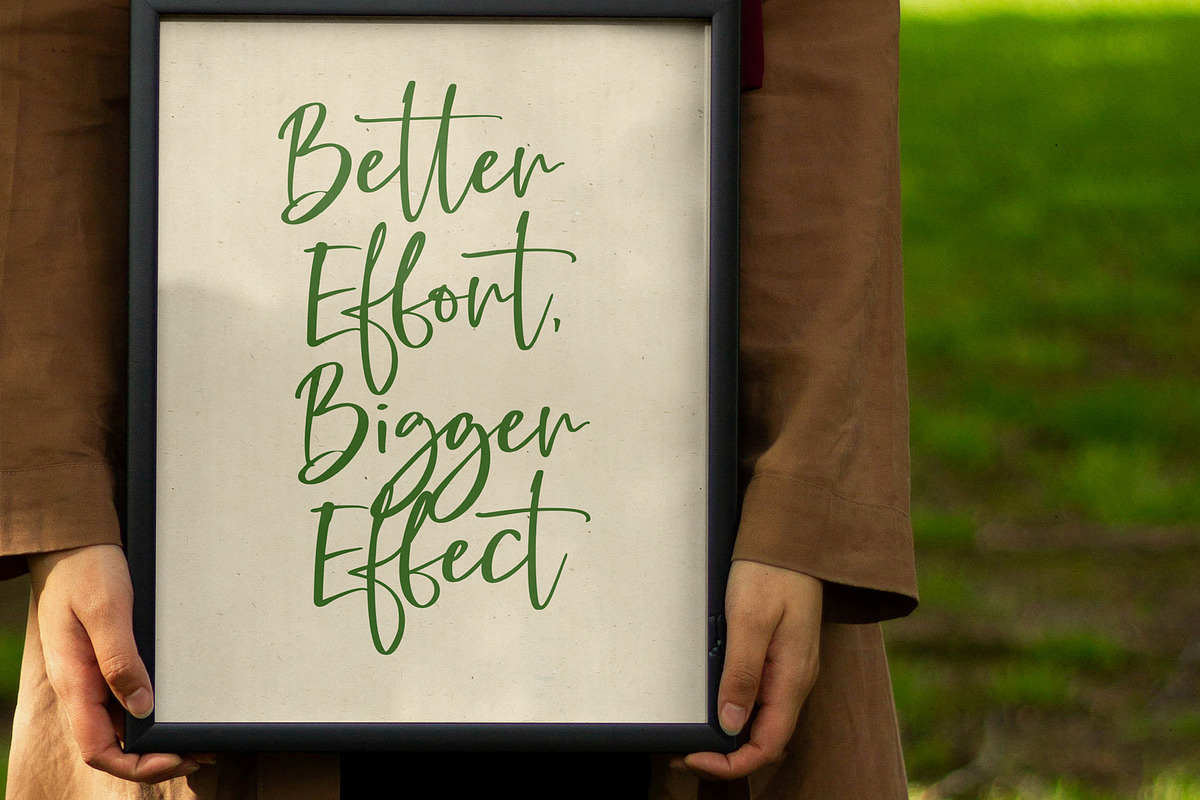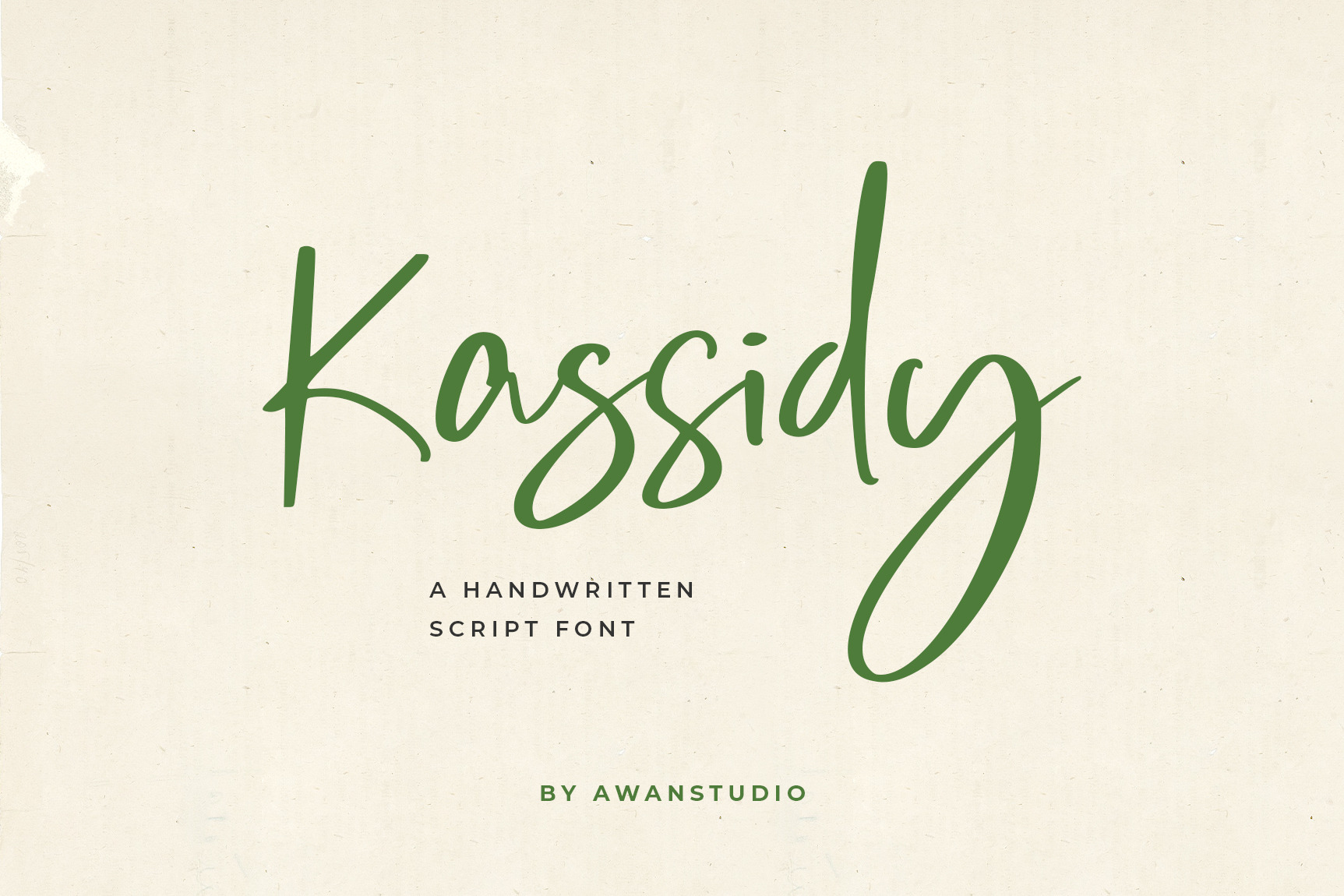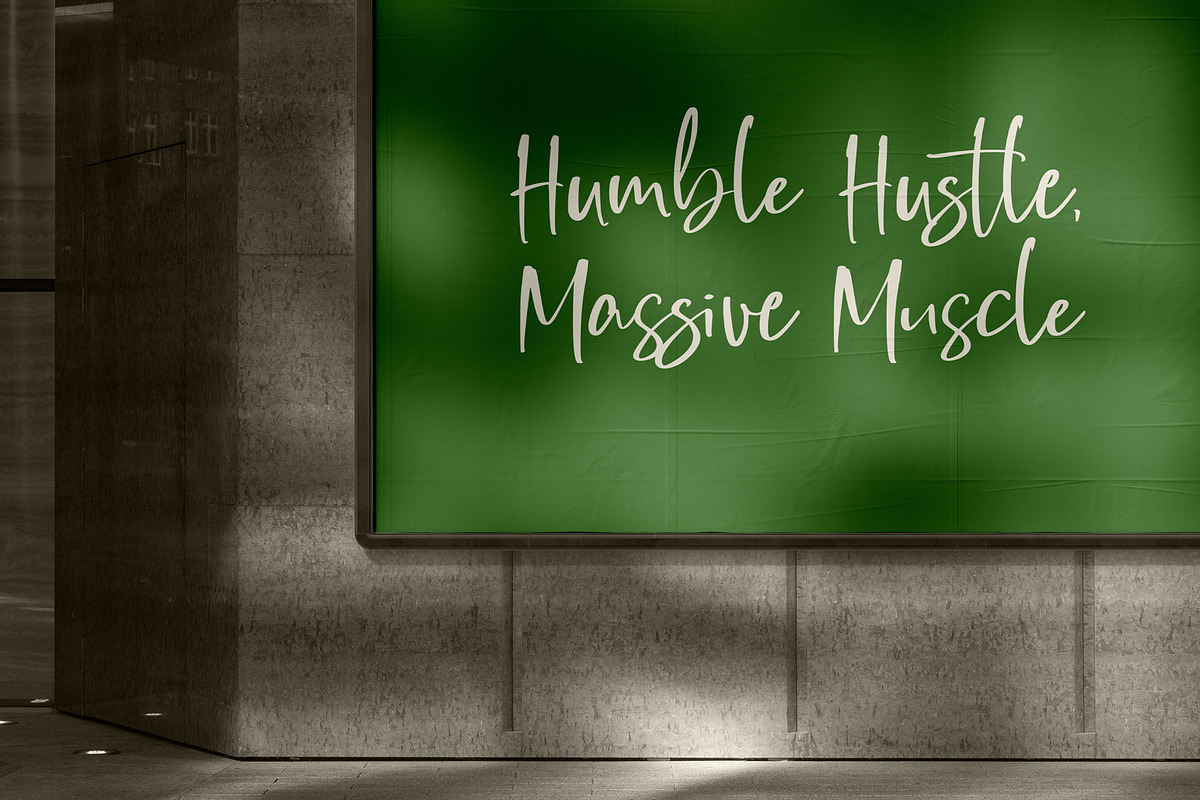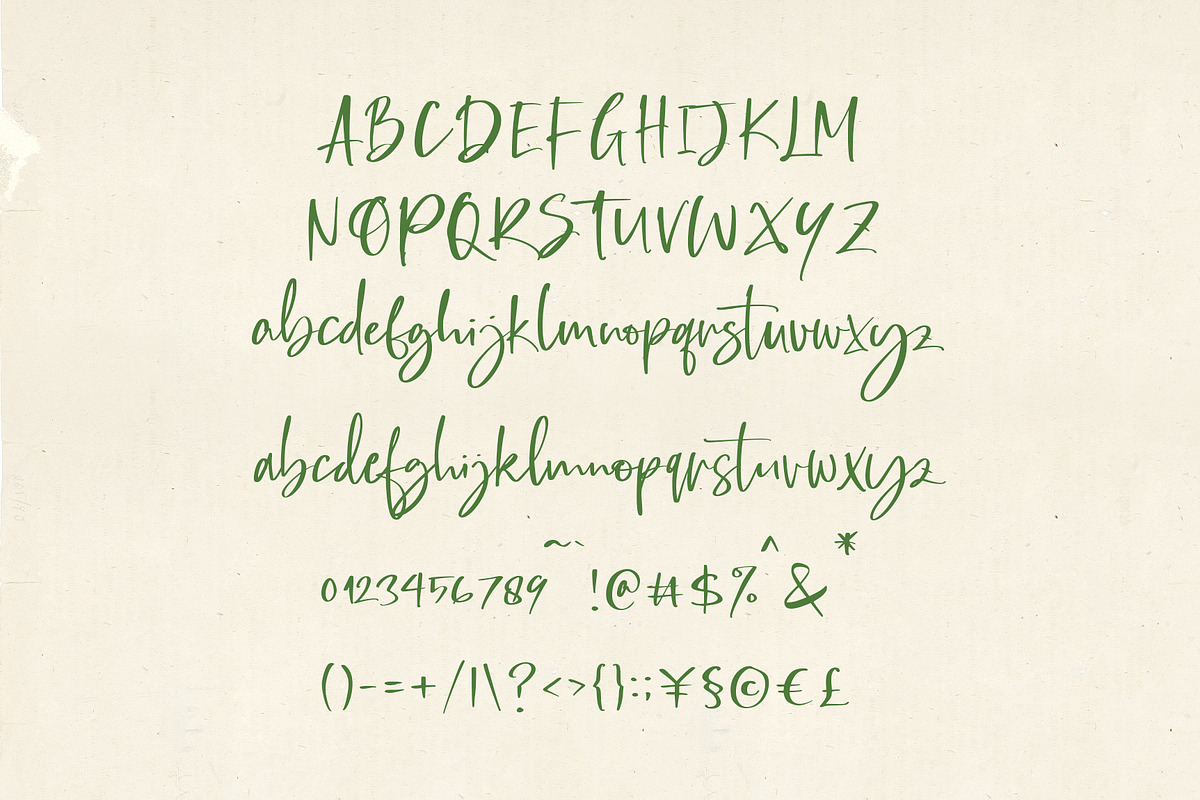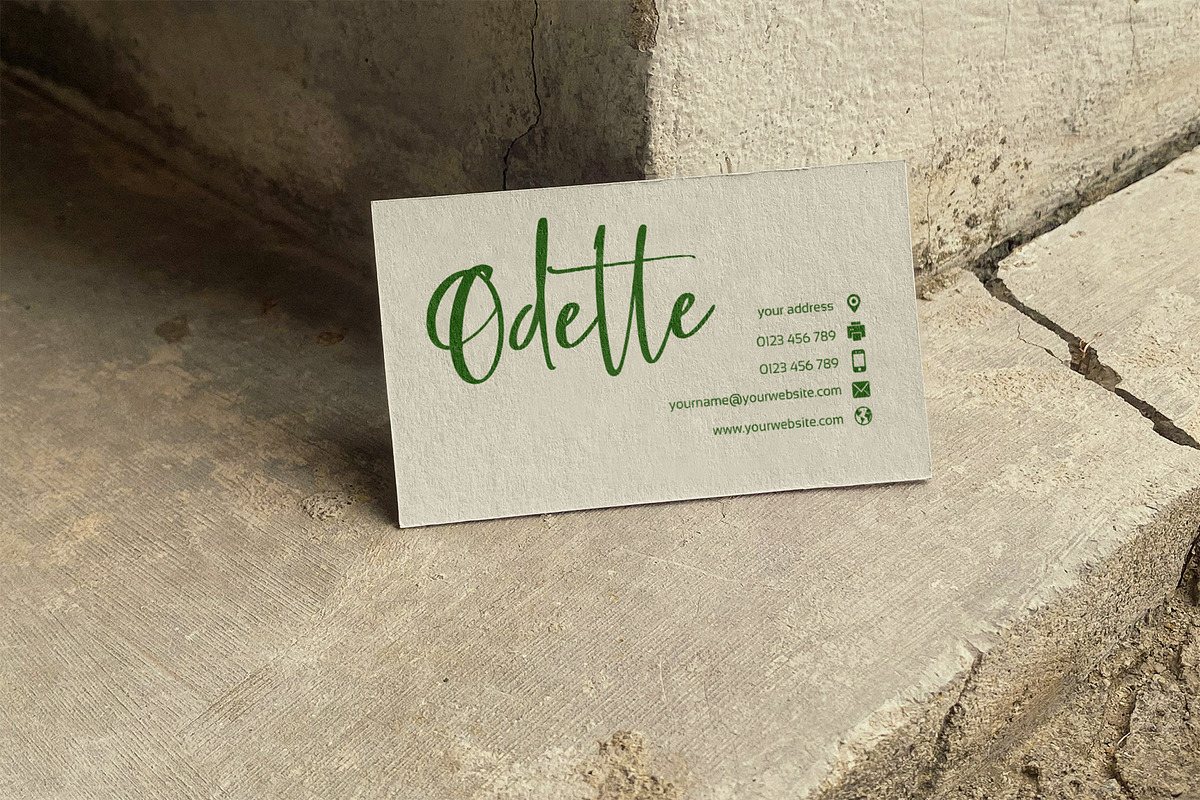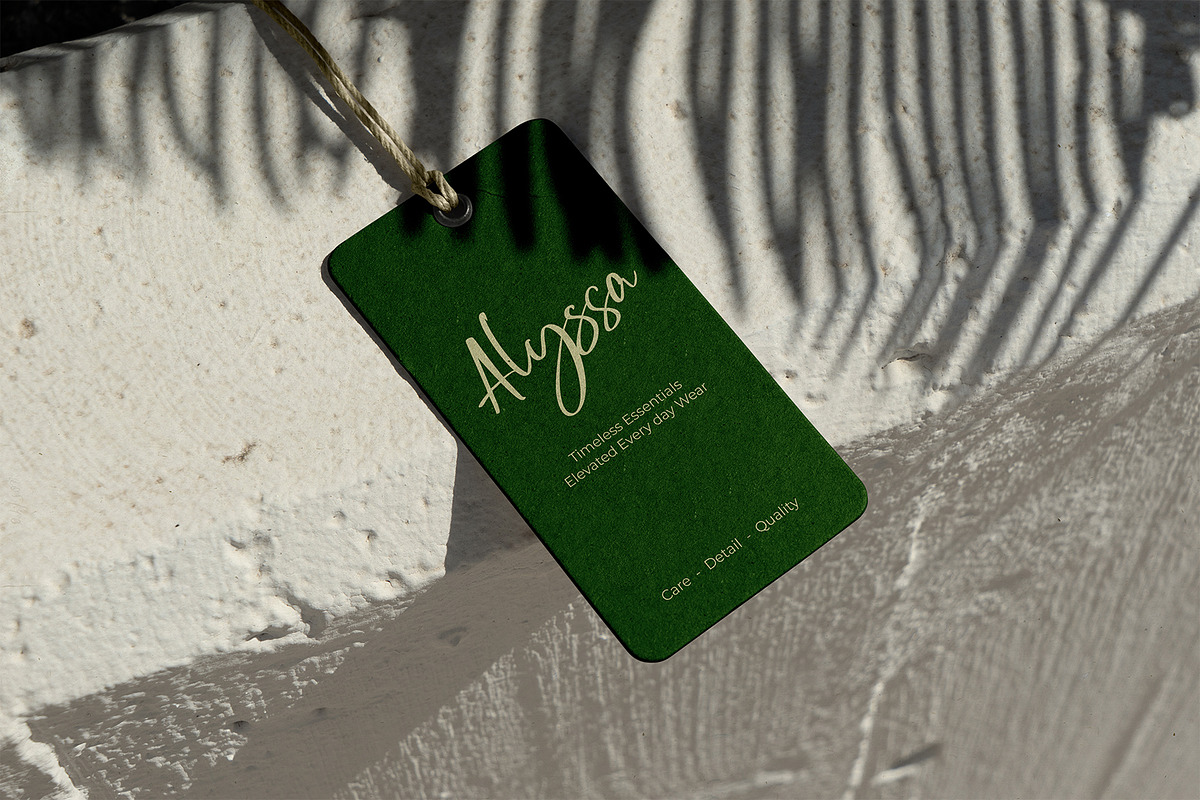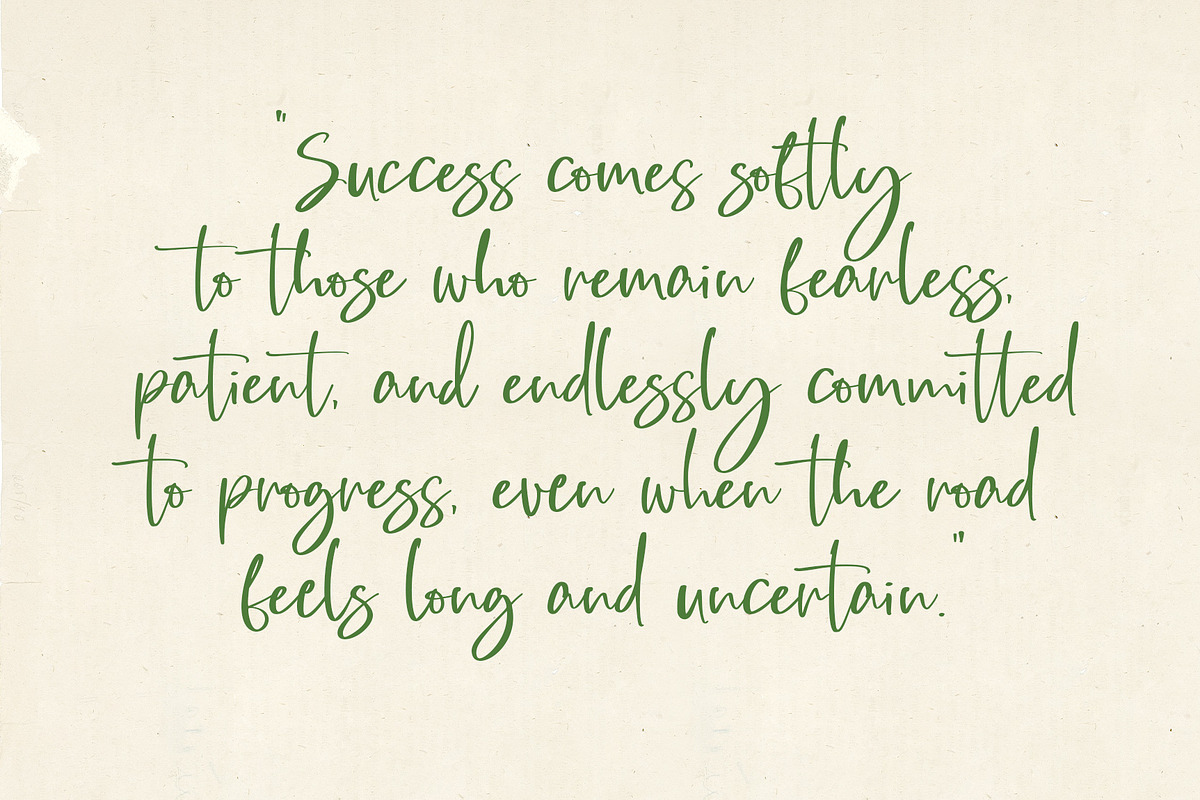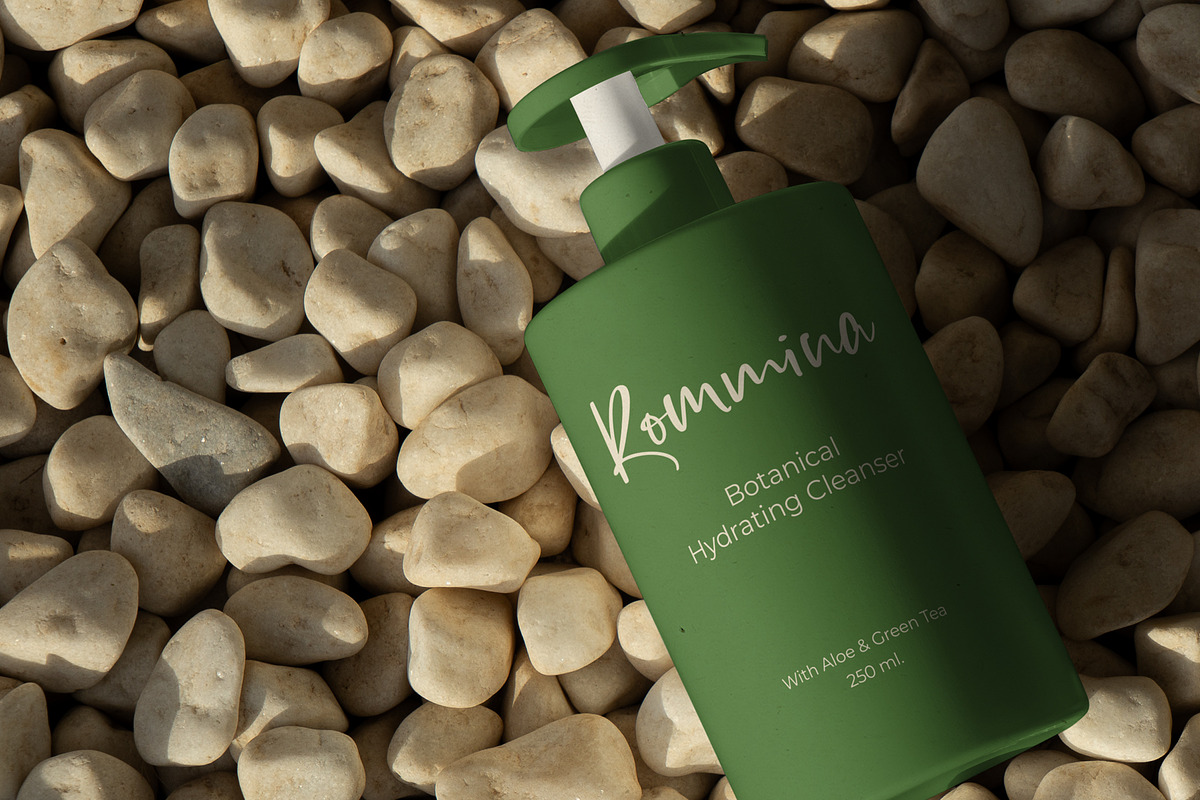
Kassidy A Handwritten Script Font
Kassidy is a natural handwritten script designed to feel effortless, confident, and beautifully imperfect. It flows like real ink on paper — smooth curves, balanced rhythm, and expressive strokes that make your words feel personal and alive.
This isn’t a stiff script. It’s relaxed. Modern. Warm. Perfect for brands that want elegance without looking over-designed.
- Alternate Lowercase